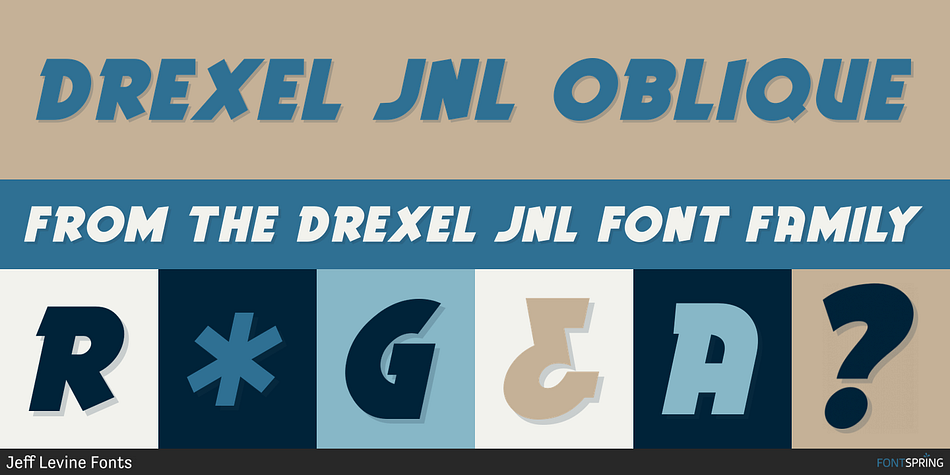
DREXEL JNL OBLIQUE
Designed by Jeff Levine, Drexel JNL is a display sans and art deco font family. This typeface has two styles and was published by Jeff Levine Fonts.
The bold hand lettered title on the 1940 sheet music for the band piece “Drexel Marching Song” was the inspiration for Drexel JNL; available in both regular and oblique versions.